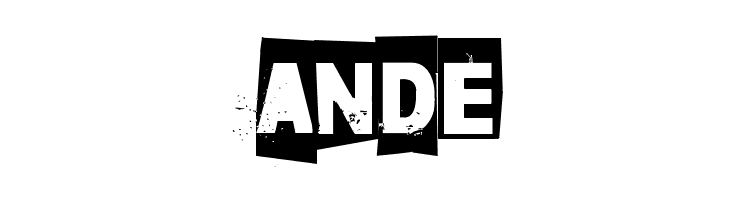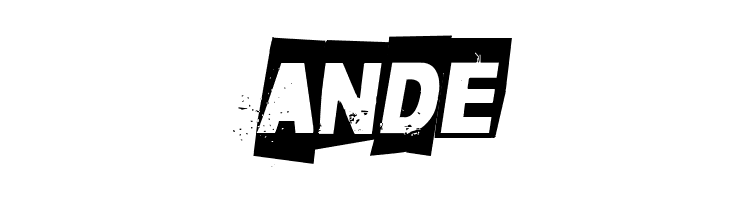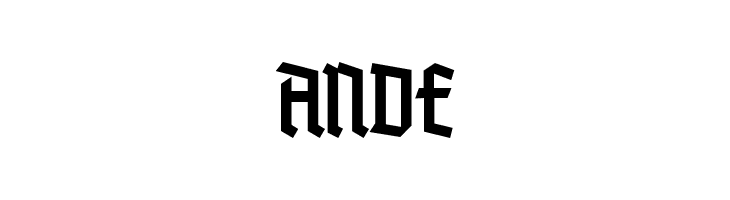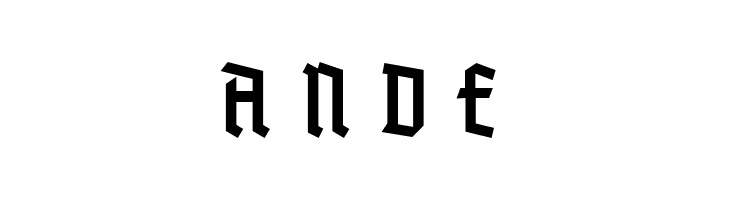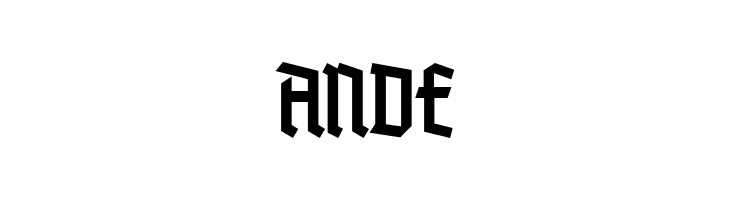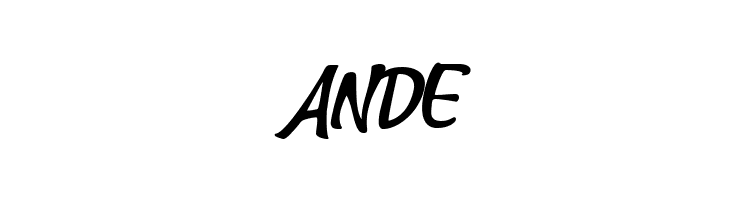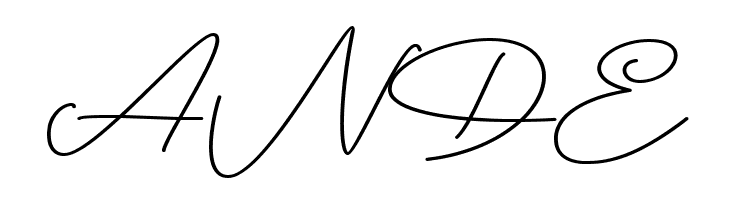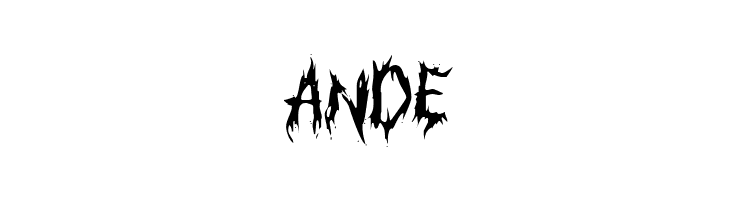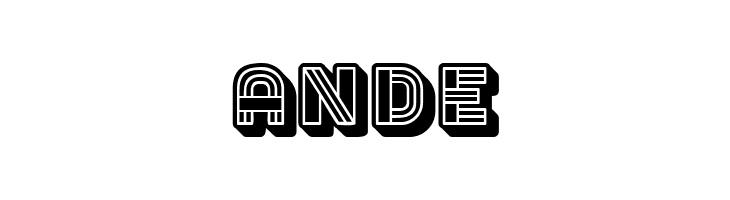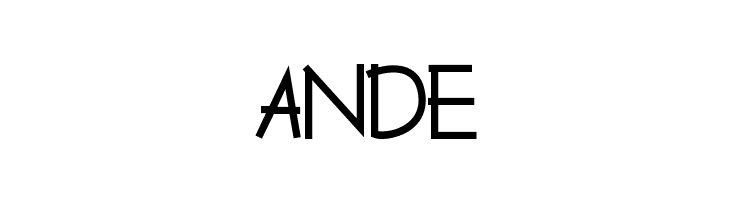
A bold, expressive script font with a handwritten, cursive style.
A bold, brush-style font with dynamic strokes and a graffiti-like appearance.
A bold, expressive script font with flowing, cursive letterforms.
A playful, hand-drawn font with bold, rounded characters and a whimsical style.
A playful, hand-drawn font with rounded, bold strokes and a whimsical style.
A bold, distressed font with a grunge, urban aesthetic.
A bold, distressed font with an urban, grunge aesthetic and italicized style.
A bold, rounded font with a playful and friendly style.
A bold blackletter font with sharp, angular lines and a gothic aesthetic.
A bold, angular Blackletter-inspired font with a modern edge.
A bold, gothic blackletter font with sharp, angular lines.
A bold, blackletter font with sharp, angular lines and a gothic aesthetic.
A dynamic and elegant script font with flowing, cursive letterforms.
A bold, energetic script font with a hand-drawn, dynamic style.
A bold, dynamic handwritten font with fluid strokes and a brush-like texture.
Playful handwritten script with tall, rounded forms and lively stroke contrast.
A bold, decorative font with a three-dimensional, layered line effect.
A playful, rounded font with a hand-drawn, casual style.
A playful, handwritten-style font with an oblique slant and smooth, rounded strokes.
A bold, decorative font with a 3D effect and intricate line patterns.
An elegant script font with flowing, connected strokes and a sophisticated style.
A playful, bold handwritten font with a casual and friendly style.
A bold, dynamic script font with fluid, connected strokes.
A bold, dynamic script font with fluid, energetic strokes.
A bold, playful font with a hand-drawn, casual style.
A dramatic, jagged font with a gothic, horror-inspired style.
A dynamic handwritten font with fluid, expressive strokes and a casual, personal feel.
A playful, hand-drawn font with a whimsical and artistic style.
A modern, artistic font with sharp angles and a hand-drawn look.
A modern, geometric font with clean lines and a minimalist style.
A bold, geometric font with minimal contrast and strong presence.
A fluid and elegant script font with a handwritten appearance.
A bold, cursive font with smooth, flowing lines and a dynamic style.
A bold, angular Gothic-inspired font with a dramatic presence.
A sophisticated cursive font with elegant, flowing strokes and intricate details.